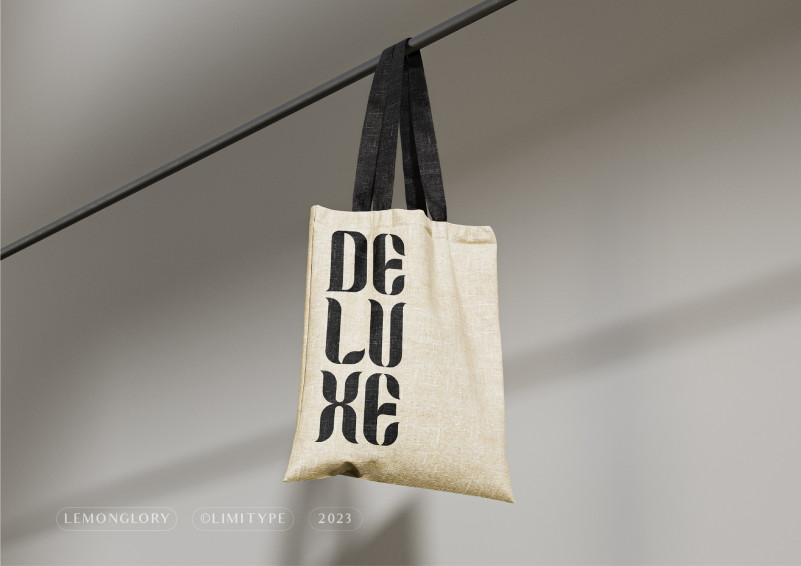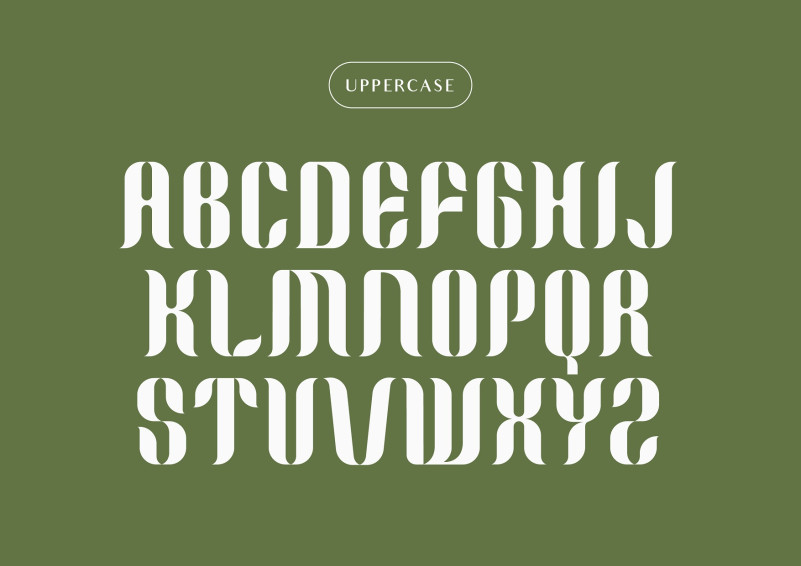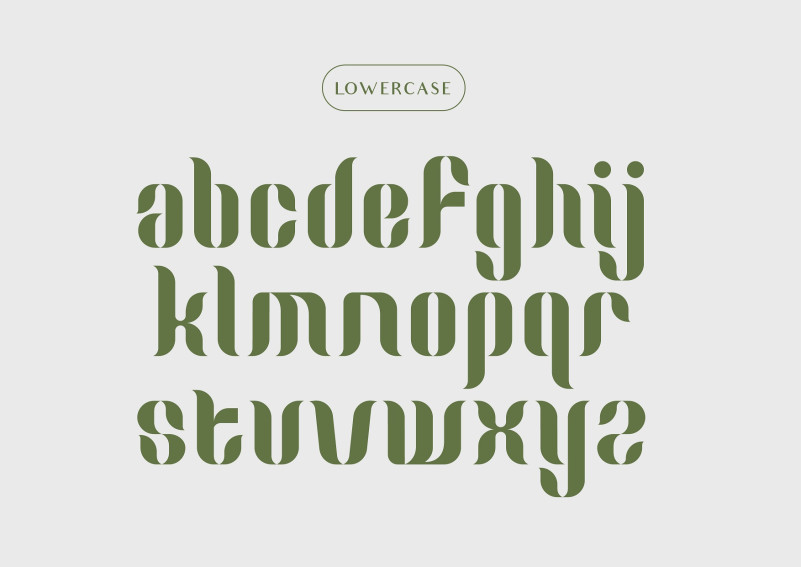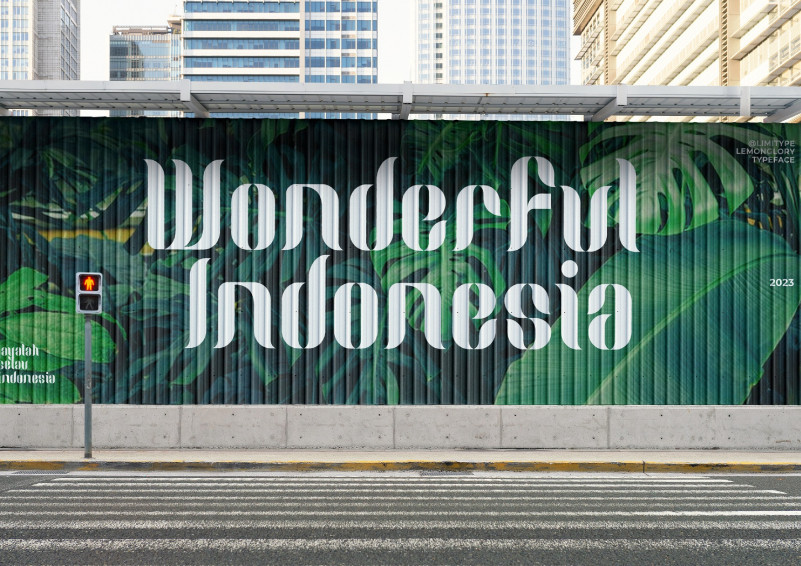
Lemon Glory Font
Lemon Glory Font is a modern and unique font inspired by the shape of a leaf. This font is perfect for displays, and its distinct shape sets it apart from other fonts styles. Lemon Glory Font is easy to read, and its versatility makes it ideal for a wide range of projects, from branding and marketing materials to websites and advertising.
This font is perfect for businesses looking to create a fresh and modern feel for their branding. It is a playful font that adds a touch of sophistication to any project. The font has a distinctive and eye-catching shape that will draw attention to any text. It is a great choice for titles, headlines, and other important pieces of text.
In conclusion, Lemon Glory Font is a modern font that is perfect for businesses and designers looking to create a unique and eye-catching look. With its unique shape inspired by the shape of a leaf, this font is sure to be a standout choice for any display. Try LemonGlory Font today, and see the difference it can make for your next project.